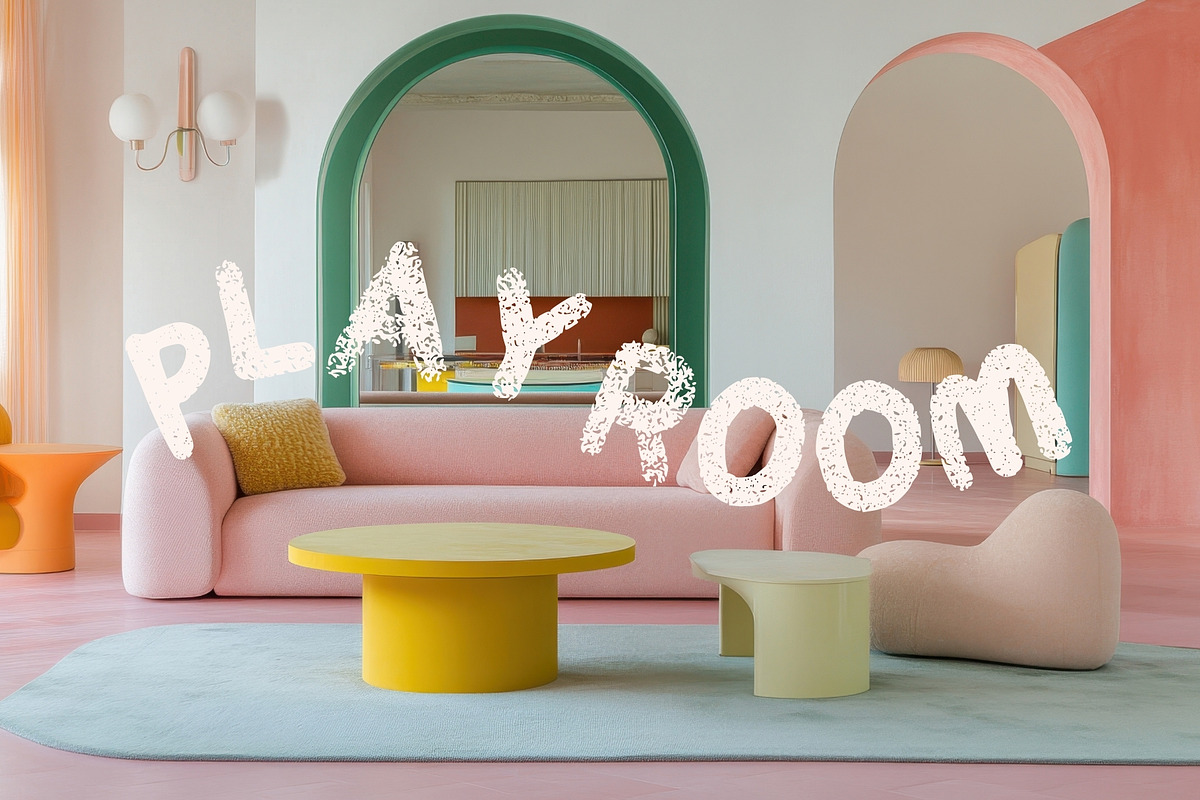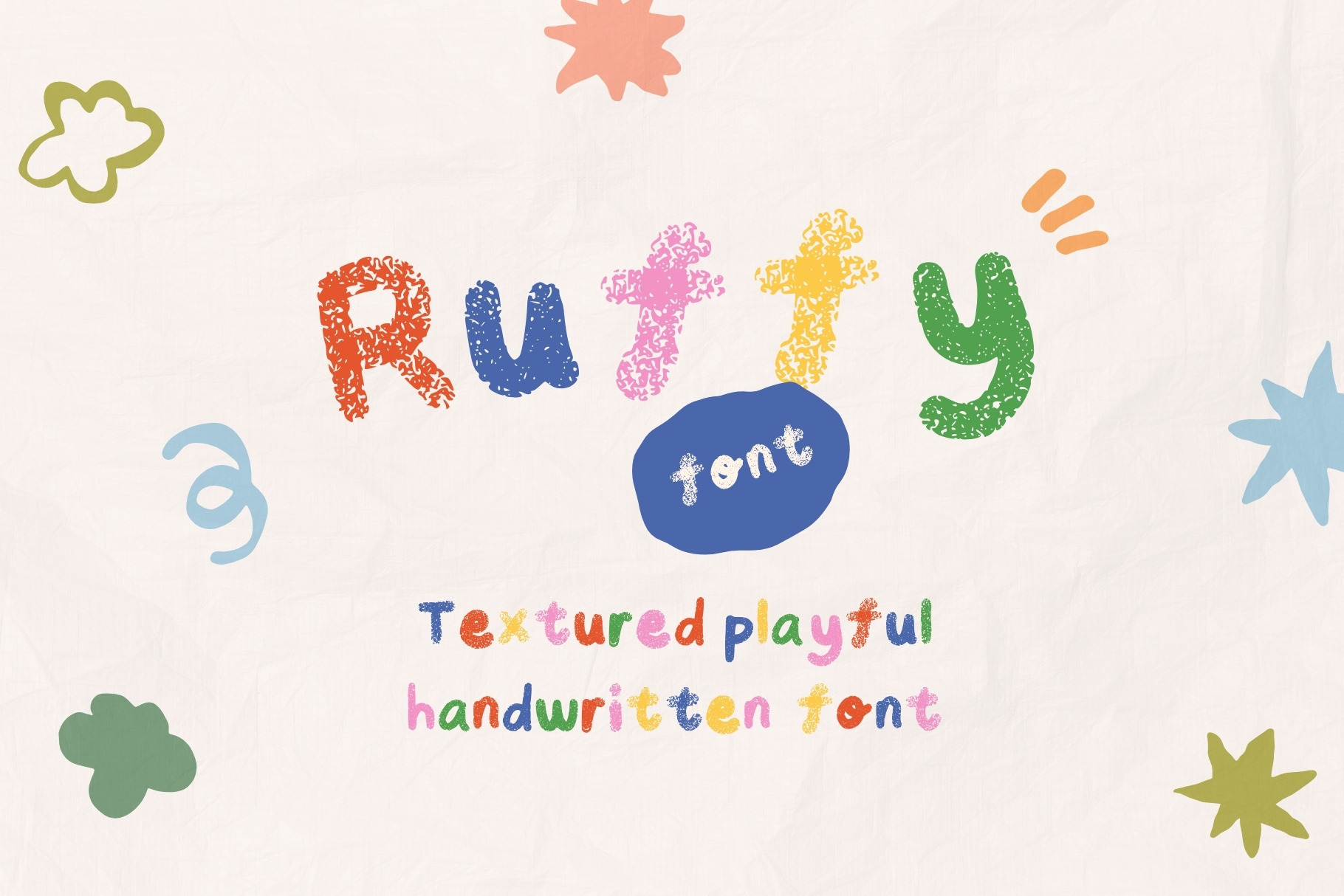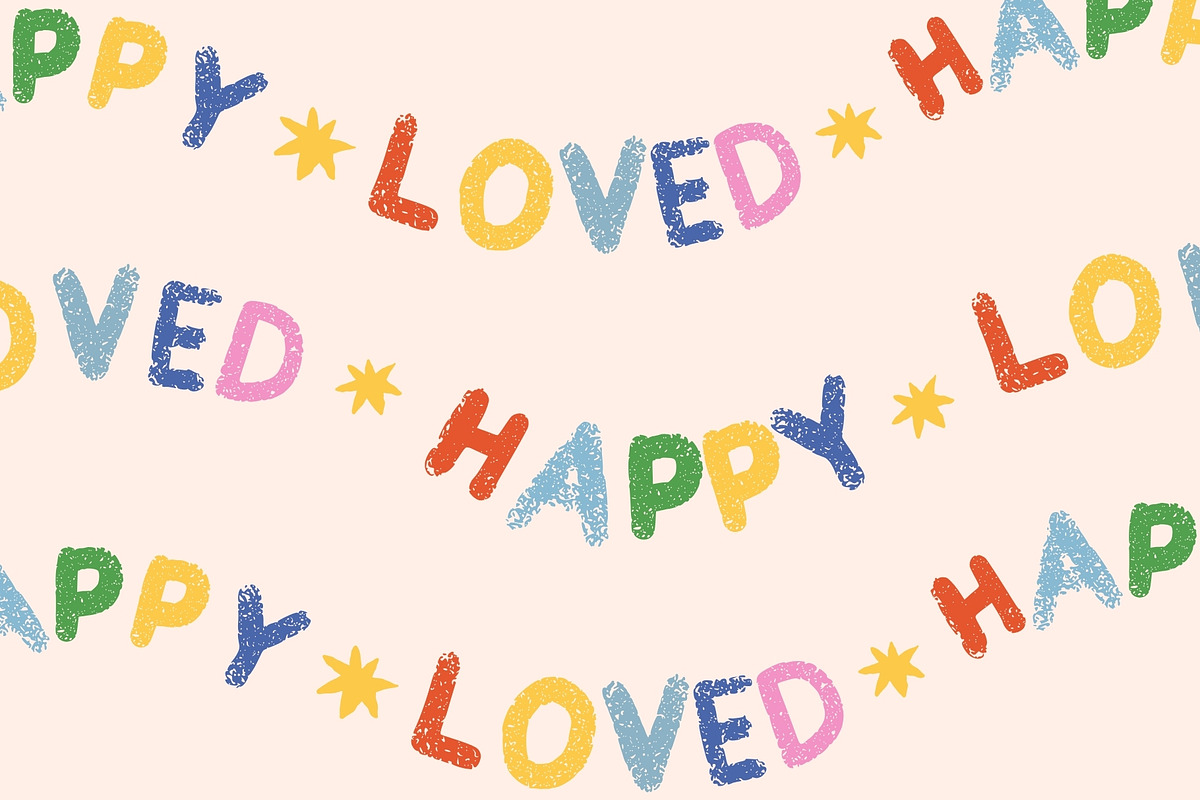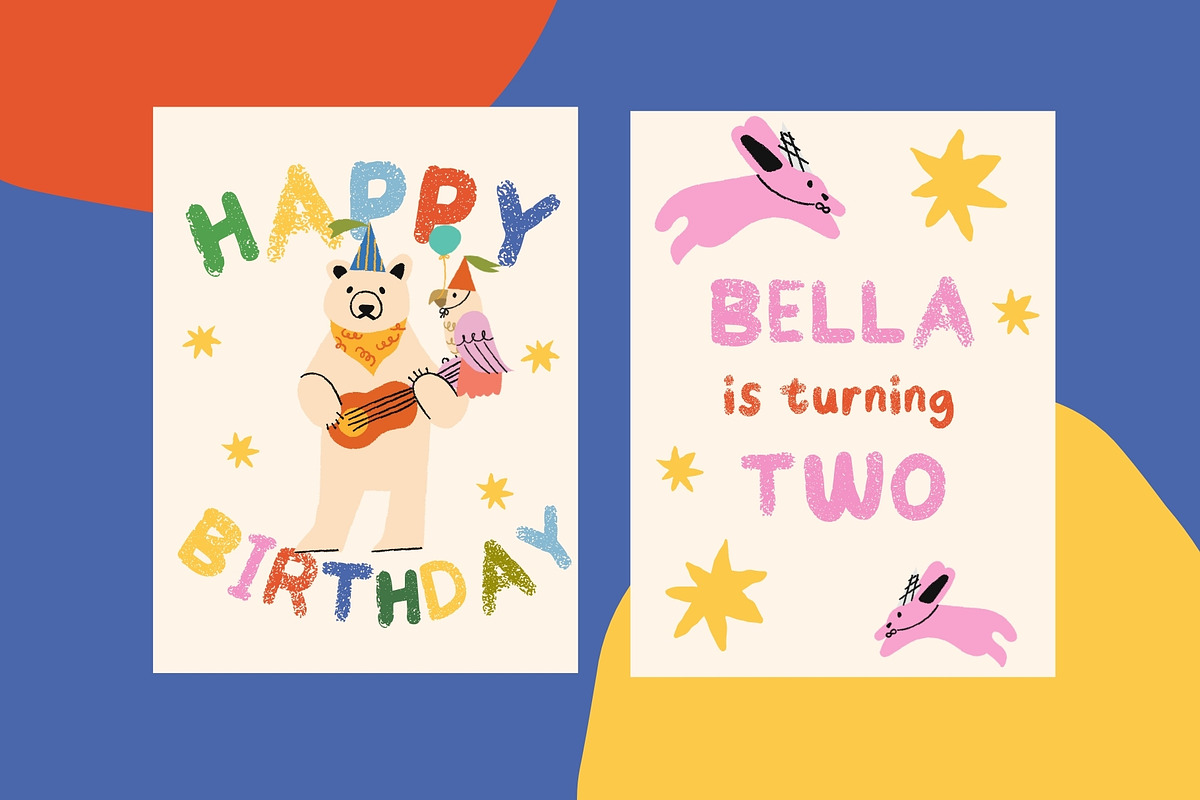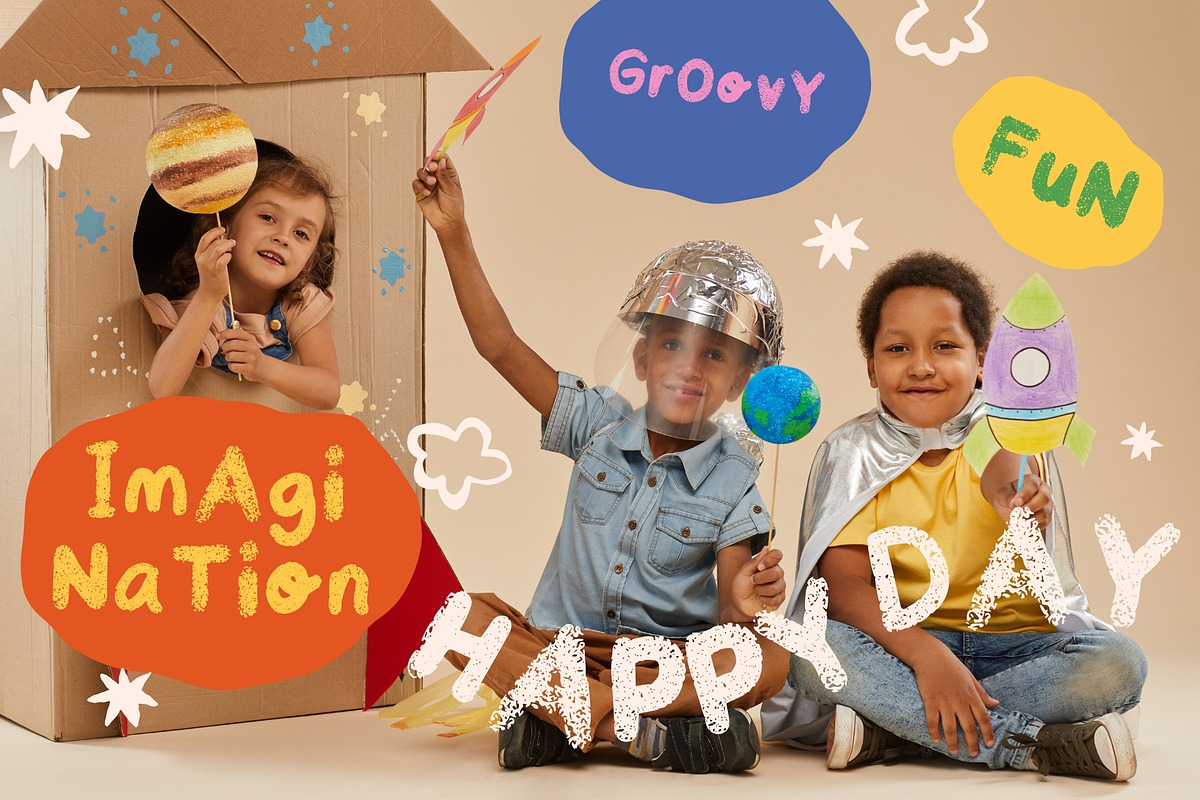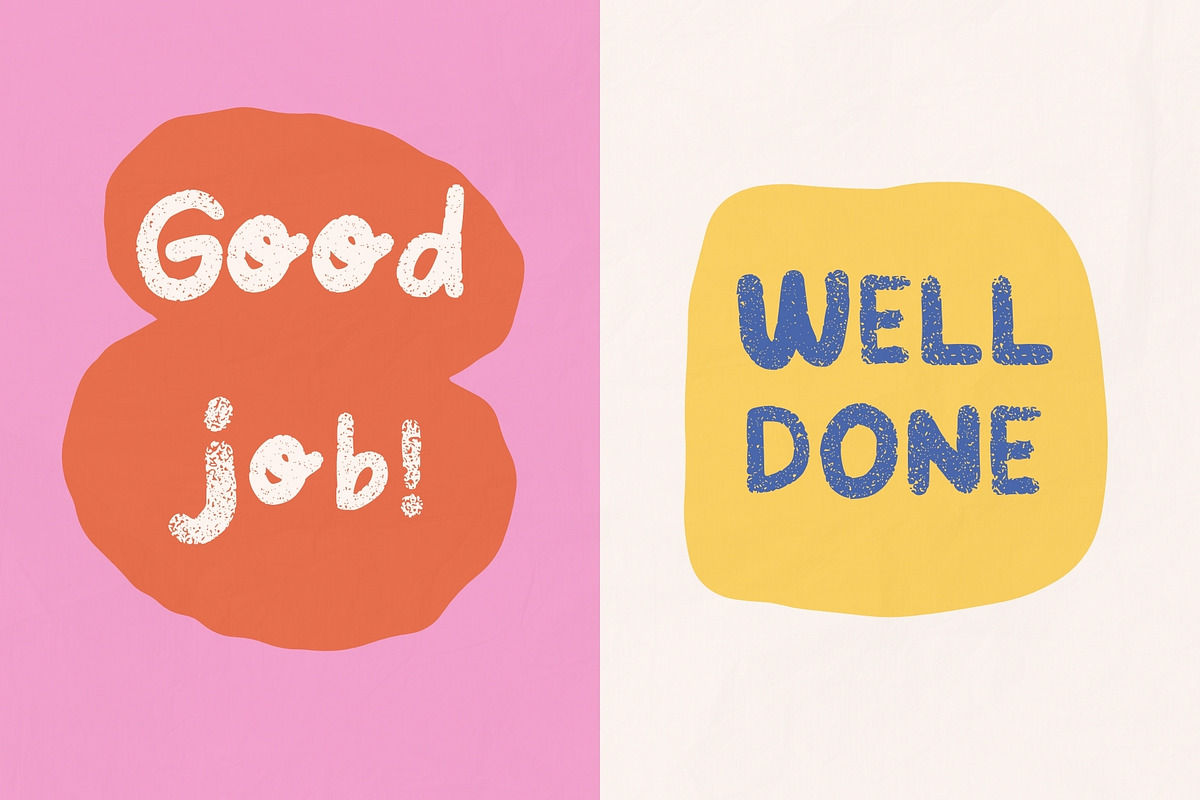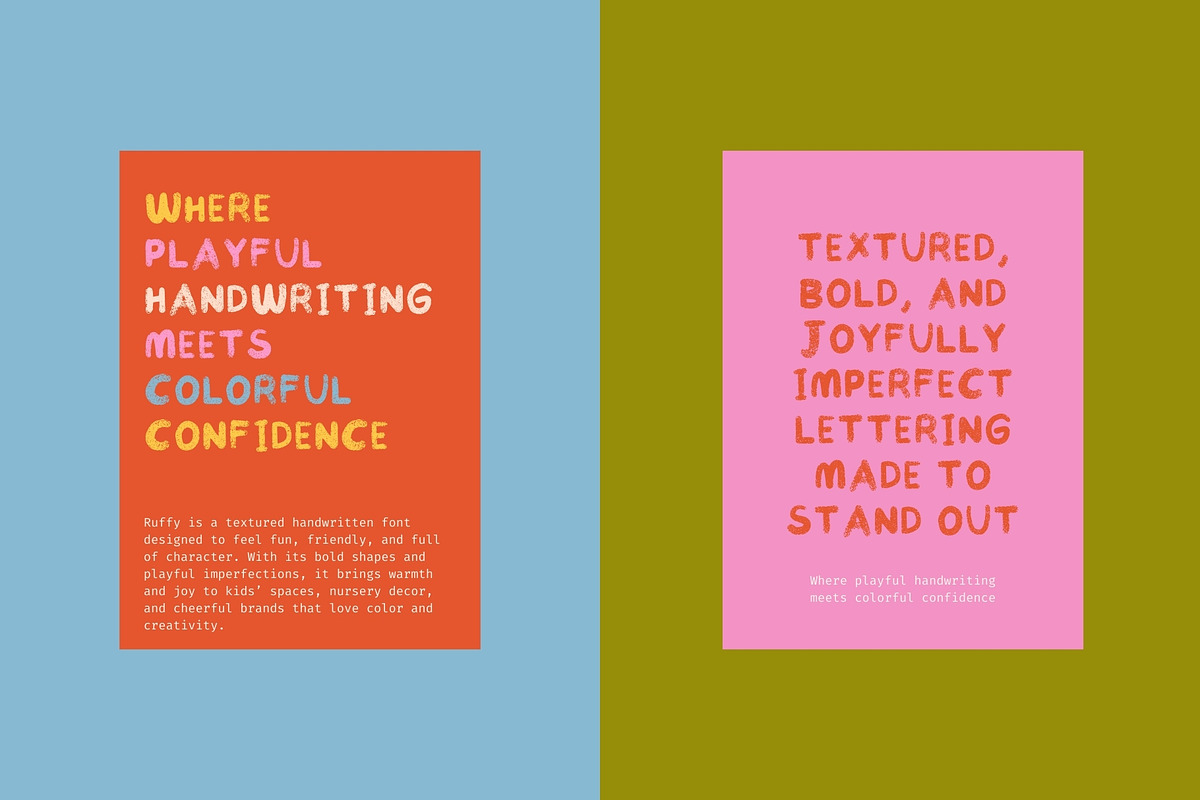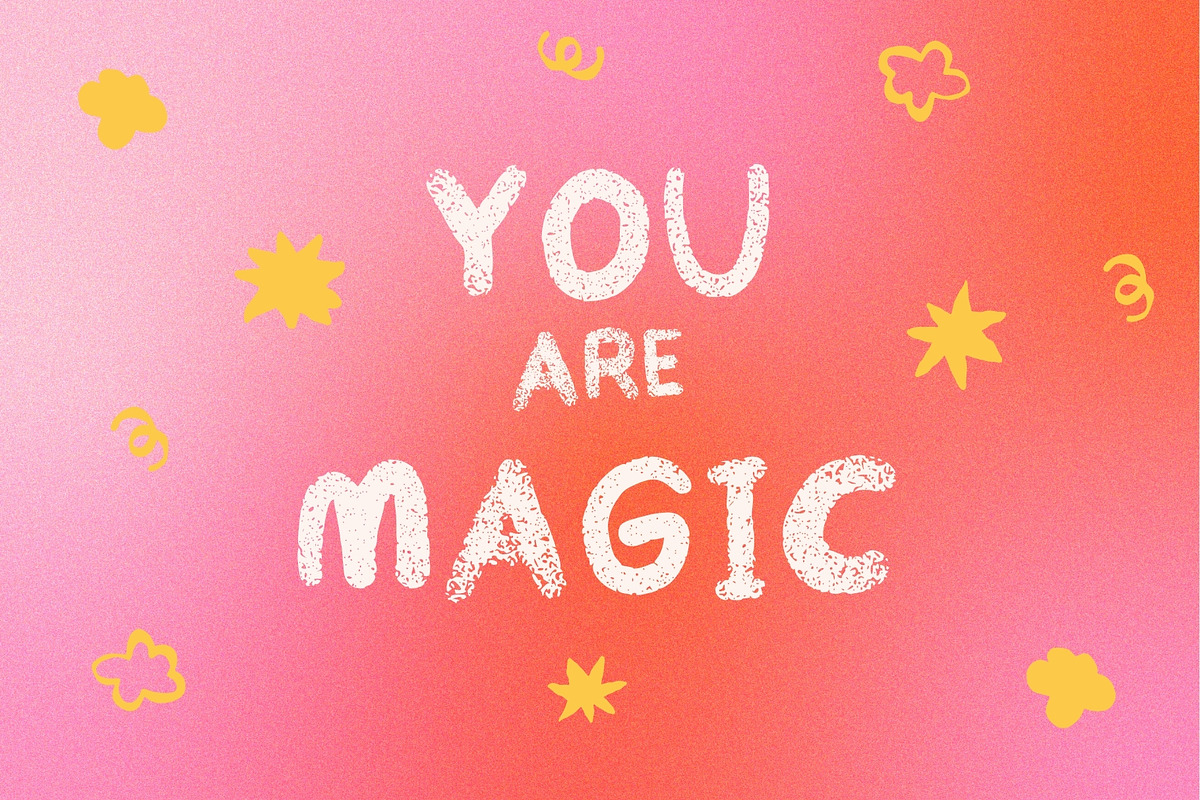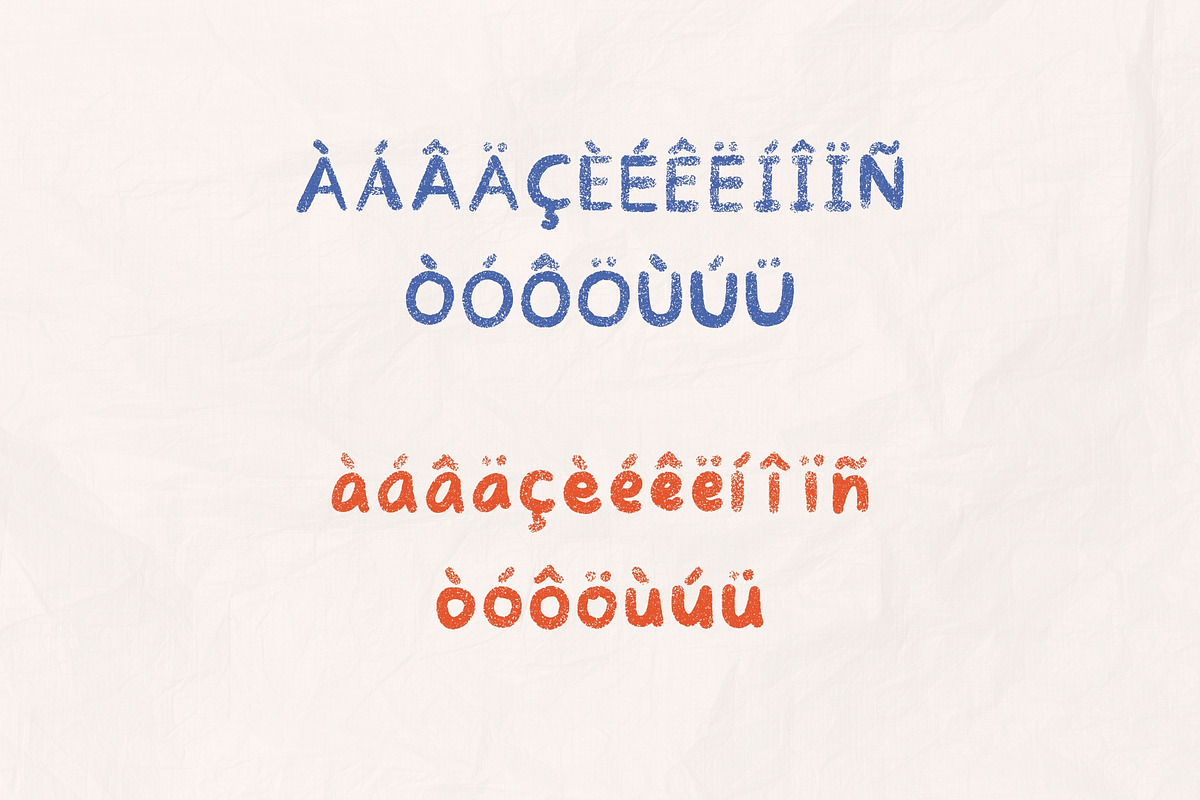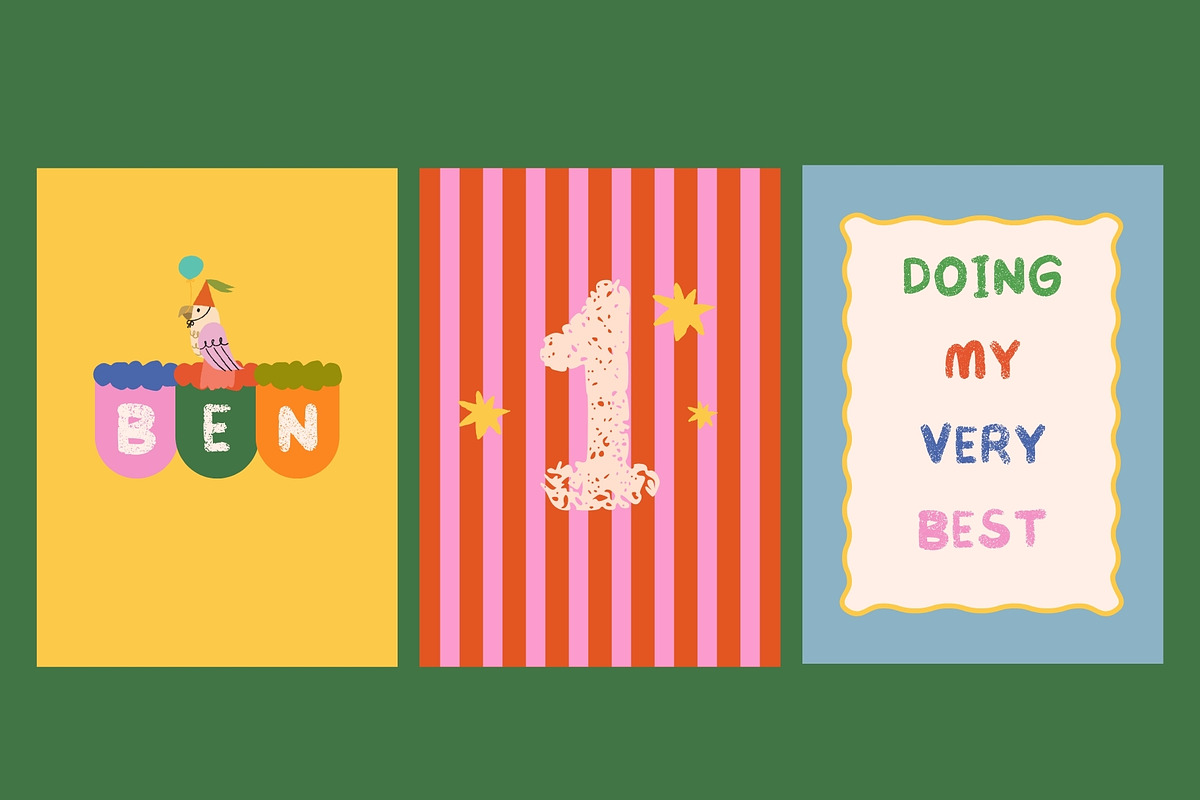
Ruffy - Textured Bold Playful Font
This product includes the Ruffy Font, a textured, playful handwritten font designed to bring joy, color, and personality to your designs. Each letter features an imperfect, hand-drawn texture that adds warmth and a charming, childlike feel.
Ruffy is perfect for kids’ nursery decor, playroom art, classroom materials, greeting cards, stickers, and cheerful brand identities that embrace bold colors and fun expression. Its friendly shapes and textured finish make messages feel approachable and happy.
The font supports English and Western European accented characters, making it suitable for a wide range of international projects.
Great for pairing with: colorful illustrations, doodles, watercolor elements, squiggle borders, and maximalist or dopamine-style layouts.